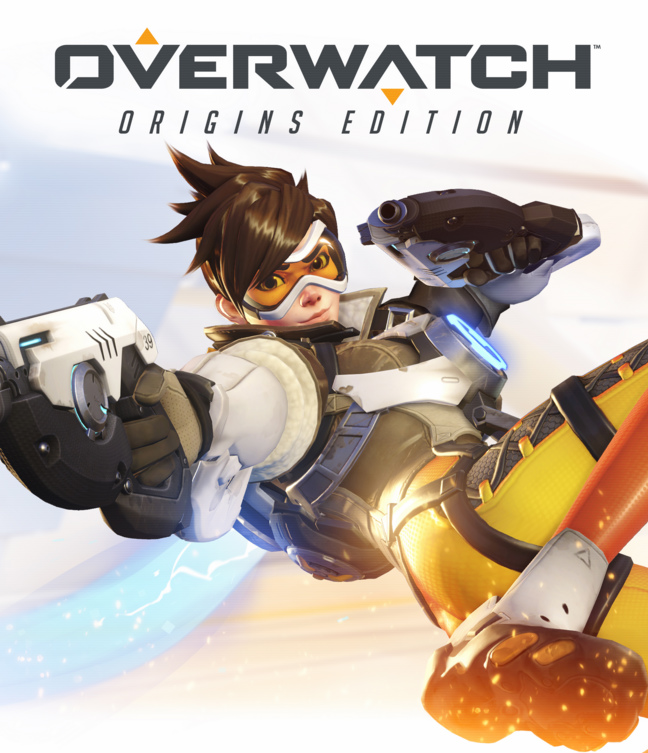
Overwatch (video game) Font
Fonts in UseOverwatch is a team-based first-person shooter game developed by Blizzard Entertainment. It features a diverse cast of heroes with unique abilities and is known for its fast-paced gameplay and emphasis on teamwork.
The cover for the Origins Edition of the game showcases the Hero character Tracer and displays the game's logo, which appears to have been created using the geometric sans serif typeface Bank Sans Caps Bold EF by Morris Fuller Benton and Günther Flake. The accompanying text, "Origins Edition," is set in Big Noodle Titling Oblique by James Arboghast.